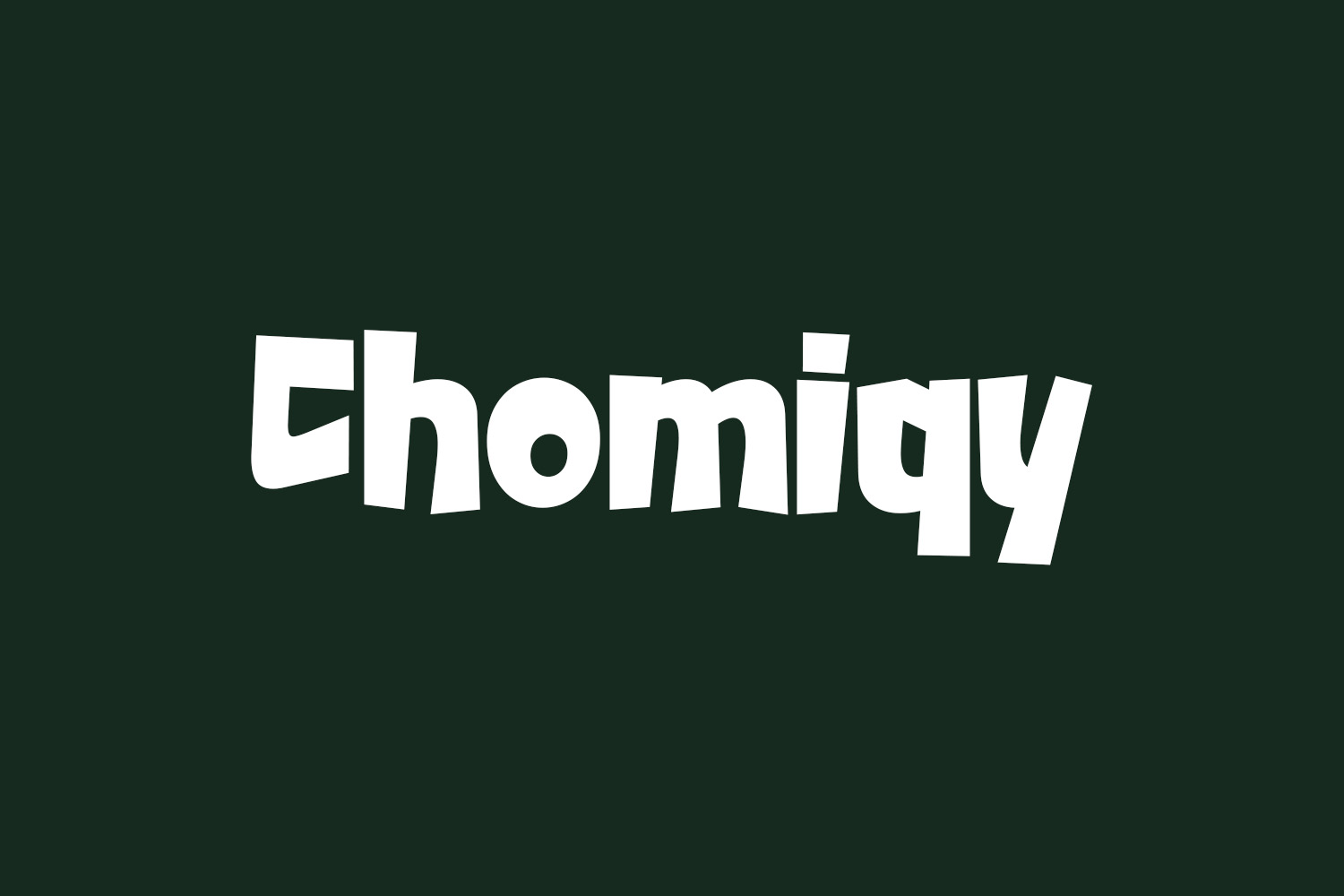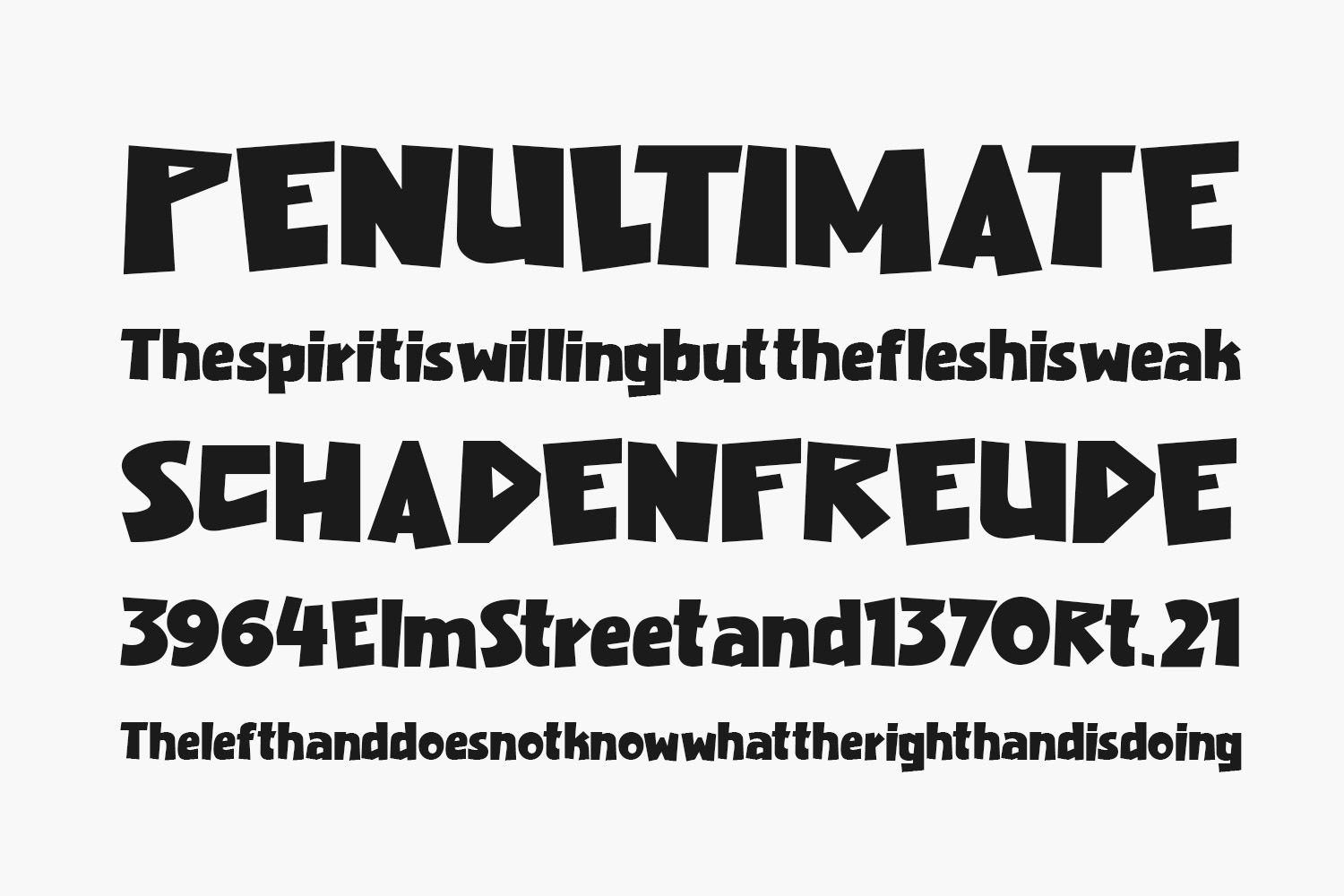
Discover the vibrancy of Chomiqy Free Font, an energetic and bold display font that radiates playfulness and authenticity. Tailored for projects seeking a lively and fun atmosphere, this chunky lettered font effortlessly brings your designs to life. Explore the dynamic charm of Chomiqy, but also witness your creative projects come alive because of its vibrant and playful vibe, or experience a transformation that adds a lively touch to your artistic endeavors. Download the font for free if you need it for personal use or purchase the full version for commercial use.
Designed by Alit Design